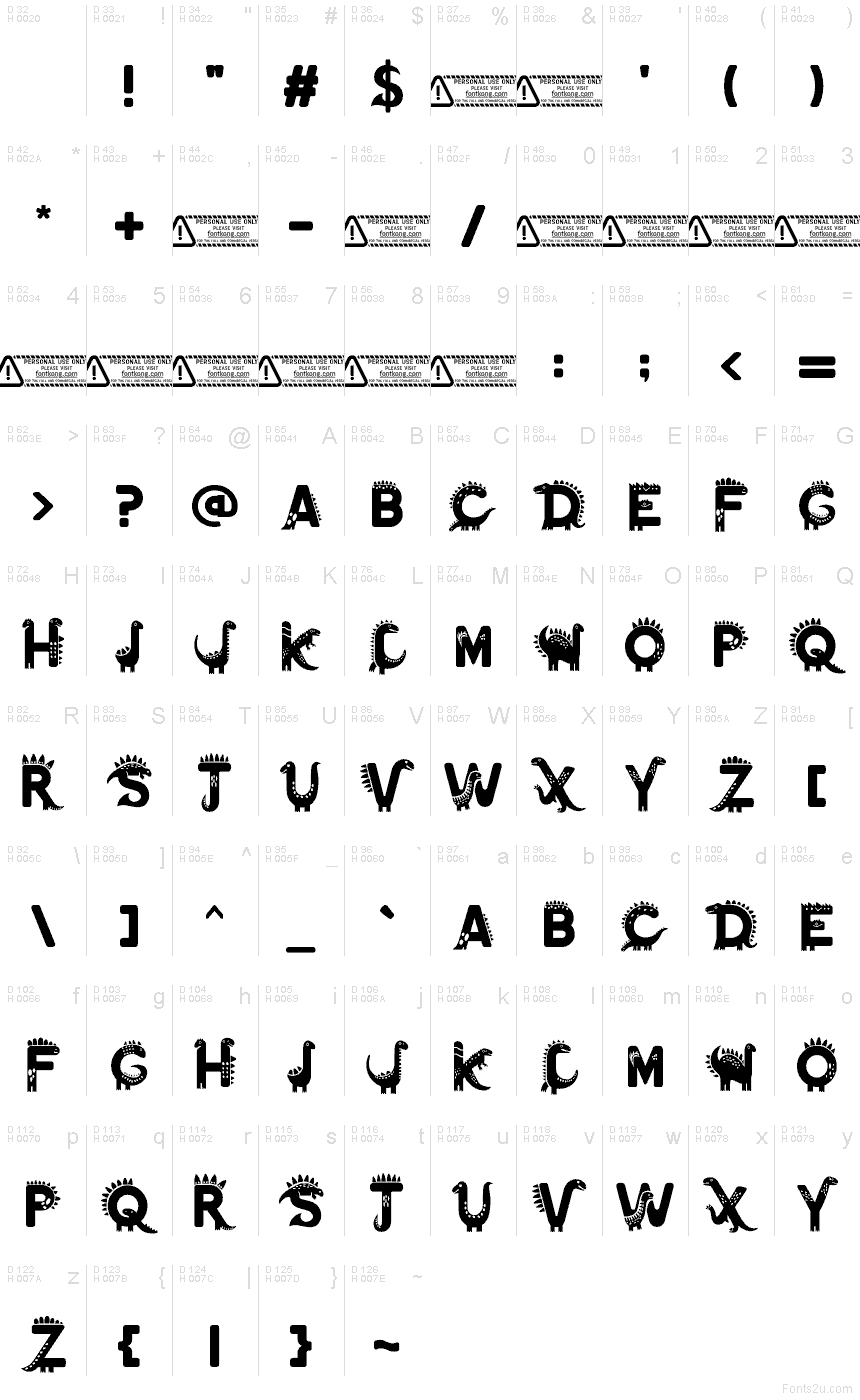
Dino Zone font by Kong Font is a playful display typeface that takes inspiration from the prehistorical age of dinosaurs. The font carries different decorative elements such as dinosaur profiles, tails, and silhouettes embedded directly into the outline of each letter. It sums up to be a truly imaginative and quirky artwork piece for fun designing.
Free odd-looking fonts open doors for new unusual design possibilities. This one in particular can be integrated into poster designs, logo projects, stationery items, book covers and so much more similar setting stuff which requires joyful artwork pieces.